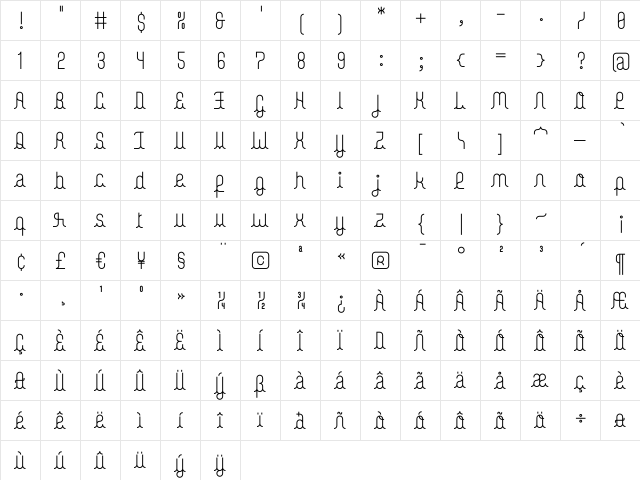
GoodnightRegular Regular
Design Context for GoodnightRegular Typeface
GoodnightRegular is a composed and adaptable typeface that performs quietly and consistently across a wide range of design contexts.